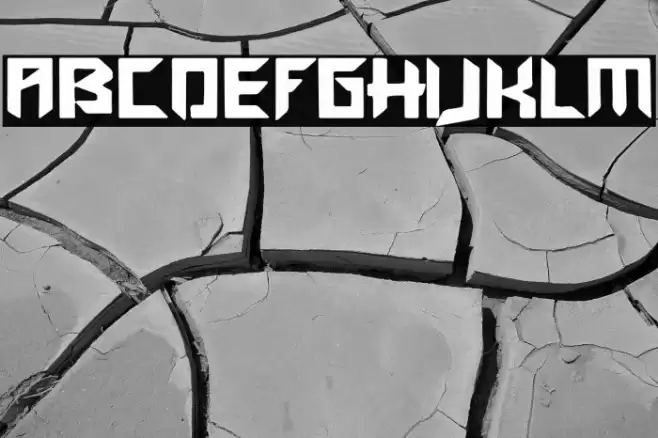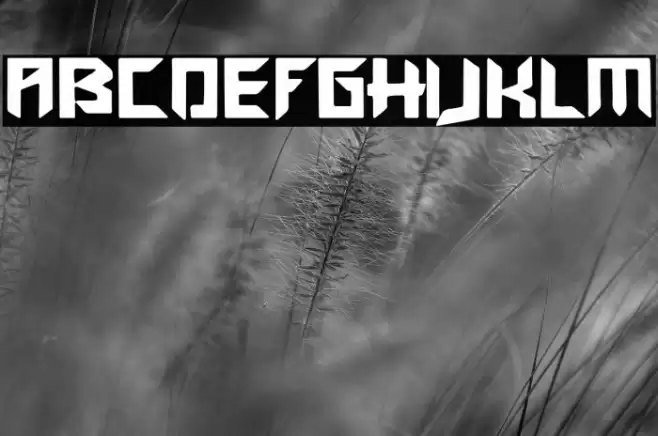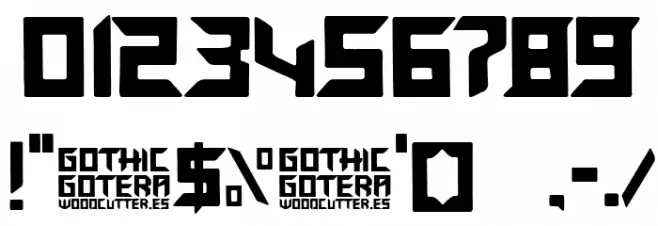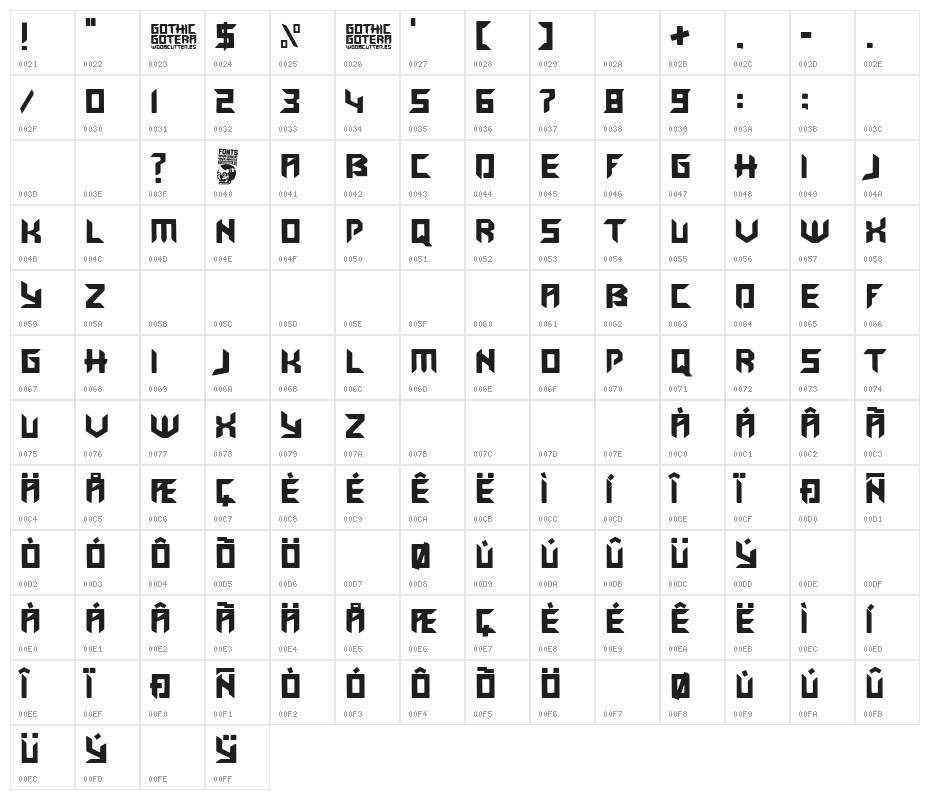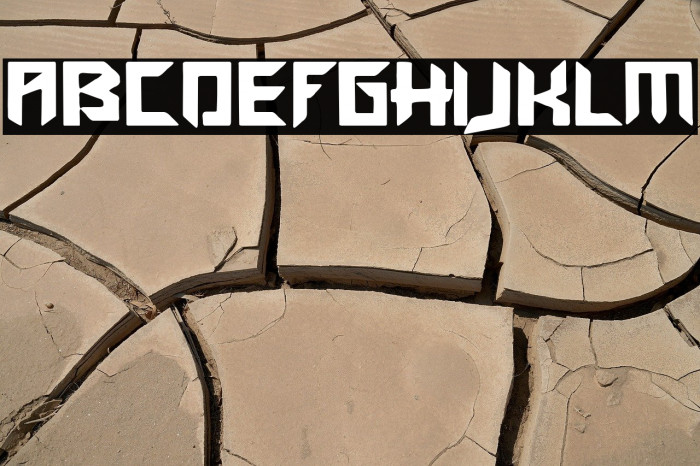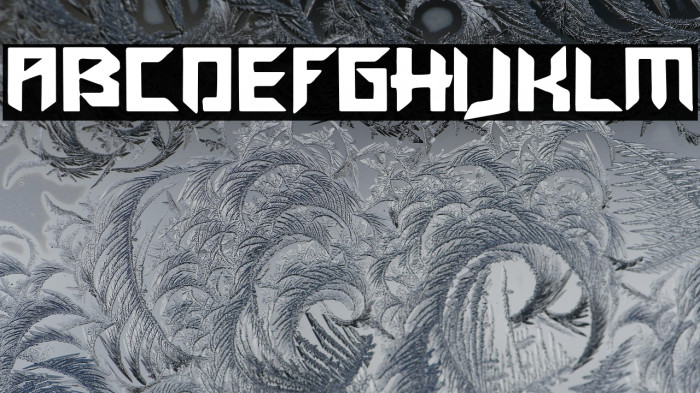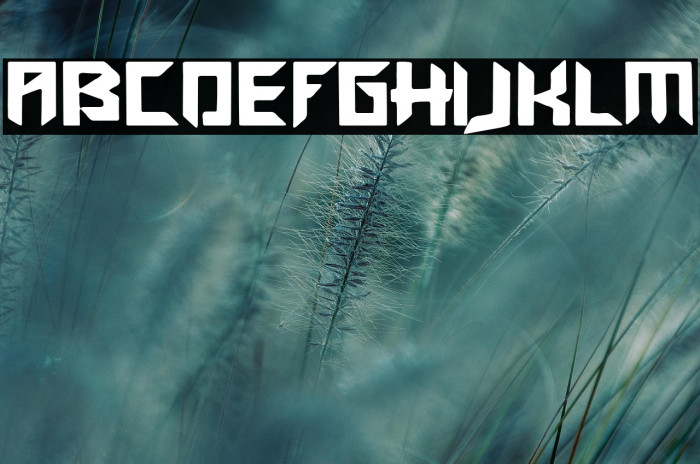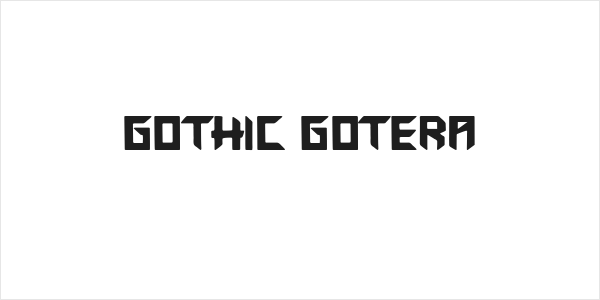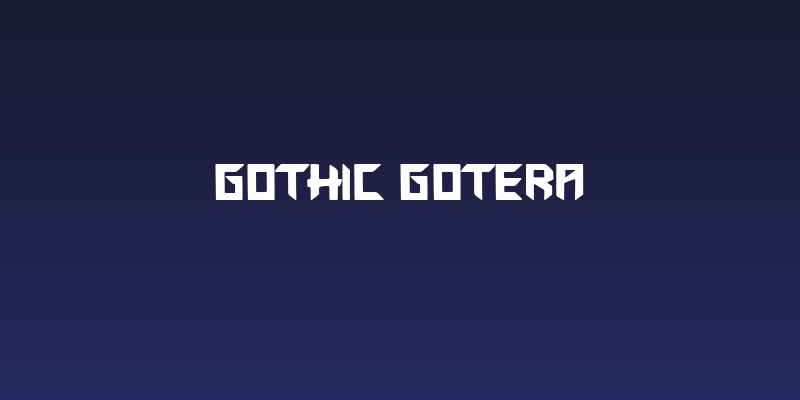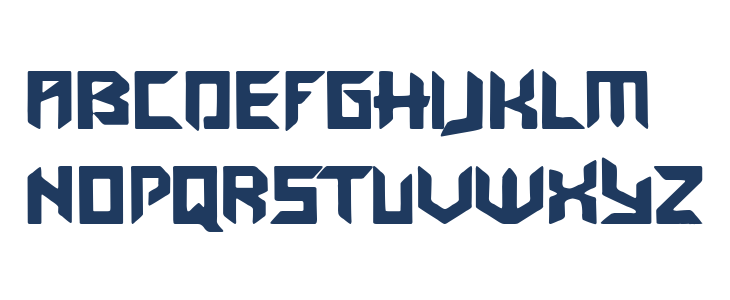
Gothic Gotera Font
Gothic Gotera Description
This font features a bold, angular design with sharp edges and a geometric structure, reminiscent of Gothic architecture. The uppercase and lowercase letters share a consistent style, with a strong emphasis on vertical and horizontal lines. The numbers and special characters maintain the same bold and edgy aesthetic, making the font suitable for impactful and striking designs. The overall appearance is both modern and medieval, combining traditional Gothic elements with a contemporary twist.
A bold, angular Gothic-inspired font with a modern twist from Uncategorized fonts.
- Font: Gothic Gotera
- Proposed Projects: Ideal for projects requiring a dramatic and bold statement, such as posters, album covers, video game titles, and branding for edgy or alternative products.
- Overall Style: Modern Gothic